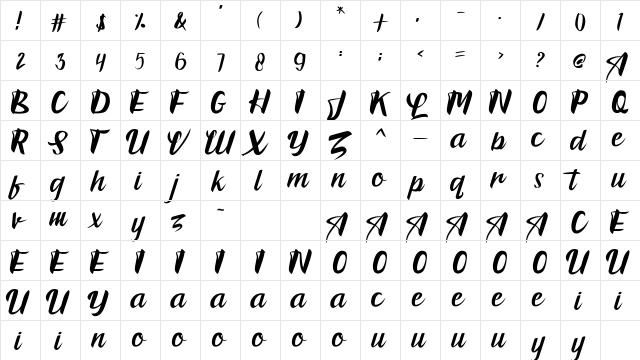
Bradles Regular
Design Context for Bradles Typeface
Bradles is a composed and adaptable typeface that performs quietly and consistently across a wide range of design contexts.